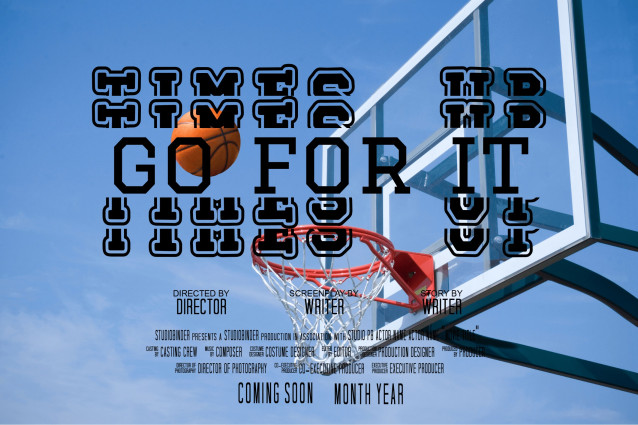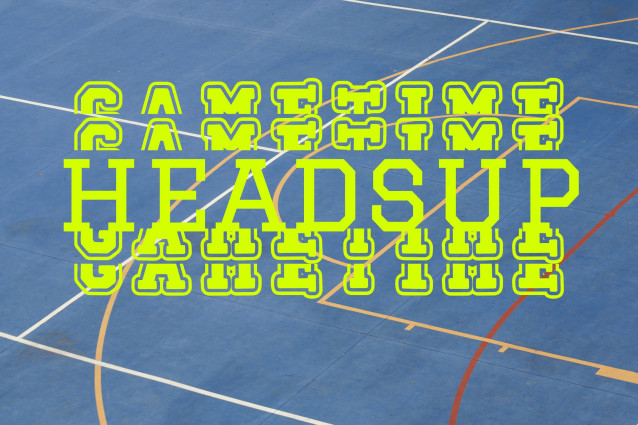
Echoline Varsity Stacked Monogr Font
Echoline Varsity Stacked Monogram is a compact, athletic-inspired monogram font that fuses classic varsity aesthetics with stacked vertical layouts. Built for bold personalization, this all-caps font is perfect for initials, logos, team gear, and anything that needs a vintage college flair with a modern monogram twist.
Features:
Stacked Monogram Style: Vertically aligned letters create bold, compact compositions.
Varsity Heritage: Inspired by traditional athletic and collegiate typography.
All-Caps Bold Design: Engineered for initials, emblems, and school-themed designs.
Ideal For: Monogram logos, varsity jackets, sports branding, team initials, Cricut crafts, and merchandise.